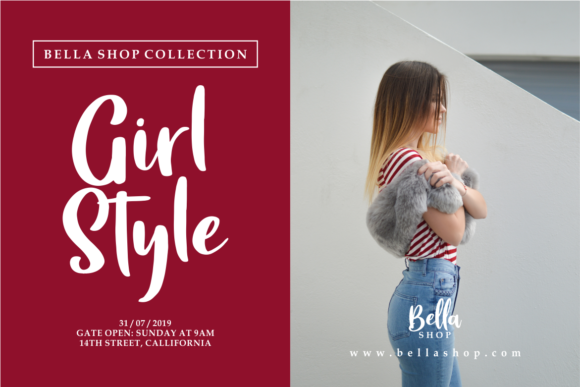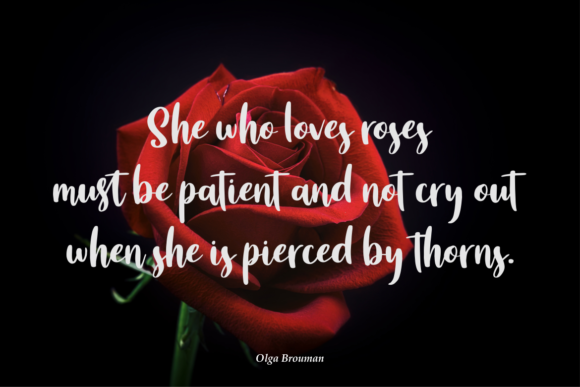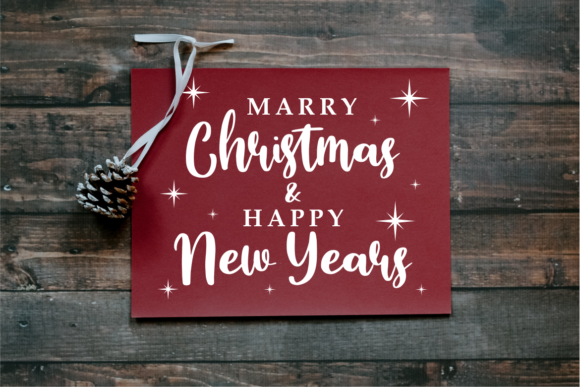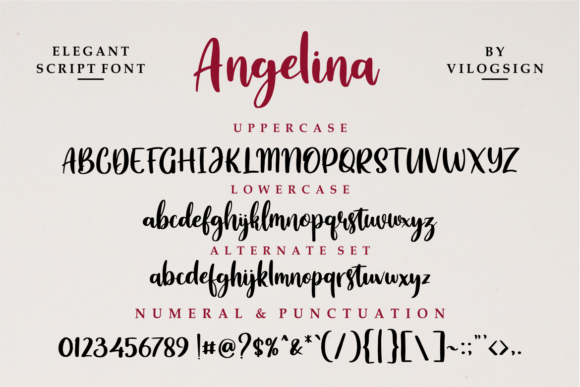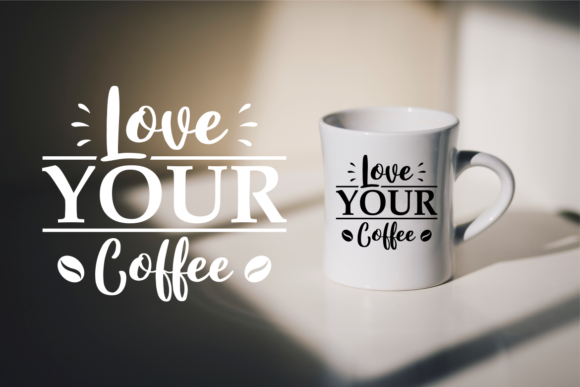
Introducing Angelina Font: Elevate Your Designs with a Playful and Beautiful Handwritten Style
Are you tired of using the same old fonts in your design projects? Do you want to add a touch of personality and whimsy to your creations? Look no further than Angelina Font, a stunning handwritten font that’s sure to make your designs stand out. With its beautiful and playful feel, Angelina Font is the perfect choice for designers and crafters looking to add a unique and creative twist to their work.
What Makes Angelina Font So Special?
Angelina Font is a one-of-a-kind handwritten font that’s been carefully crafted to bring a sense of joy and playfulness to your designs. Its beautiful, flowing script is perfect for creating eye-catching headlines, titles, and text that will capture the attention of your audience. Whether you’re working on a branding project, a craft tutorial, or a social media graphic, Angelina Font is sure to add a touch of magic to your design.
One of the things that sets Angelina Font apart from other fonts is its incredible feel. The font has been carefully designed to mimic the look and feel of handwritten text, with subtle imperfections and variations that give it a warm and organic feel. This makes it perfect for designs that need a personal touch, such as handmade crafts, DIY tutorials, and personal branding projects.
How to Use Angelina Font in Your Designs
Angelina Font is incredibly versatile and can be used in a wide range of design projects. Here are just a few ideas to get you started:
- Branding and Logo Design: Use Angelina Font to create a unique and memorable logo for your business or brand. The font’s playful and whimsical feel makes it perfect for businesses that want to stand out from the crowd.
- Crafting and DIY Projects: Add a personal touch to your crafting and DIY projects with Angelina Font. Use it to create titles, headings, and text for tutorials, patterns, and other craft-related designs.
- Social Media Graphics: Use Angelina Font to create eye-catching social media graphics that will help you stand out from the crowd. The font’s playful feel makes it perfect for creating engaging and shareable content.
- Stationery and Paper Crafts: Add a touch of elegance and sophistication to your stationery and paper crafts with Angelina Font. Use it to create beautiful and unique greeting cards, invitations, and other paper crafts.
Tips and Tricks for Getting the Most Out of Angelina Font
Here are a few tips and tricks to help you get the most out of Angelina Font:
- Experiment with Different Sizes and Colors: Don’t be afraid to experiment with different sizes and colors of Angelina Font. The font looks great in a wide range of sizes and colors, so don’t be afraid to try out different combinations to find the one that works best for your design.
- Pair it with Other Fonts: Angelina Font looks great when paired with other fonts. Try pairing it with a bold sans-serif font for a striking contrast, or with a elegant script font for a more sophisticated look.
- Use it to Create Texture and Interest: Angelina Font is perfect for creating texture and interest in your designs. Use it to create a focal point, or to add a touch of whimsy to your design.
Angelina Font is a beautiful and playful handwritten font that’s sure to elevate your designs to the next level. With its incredible feel and versatile design, it’s the perfect choice for designers and crafters looking to add a unique and creative twist to their work. Whether you’re working on a branding project, a craft tutorial, or a social media graphic, Angelina Font is sure to make your designs stand out. So why wait? Download Angelina Font today and start creating stunning designs that will capture the attention of your audience!